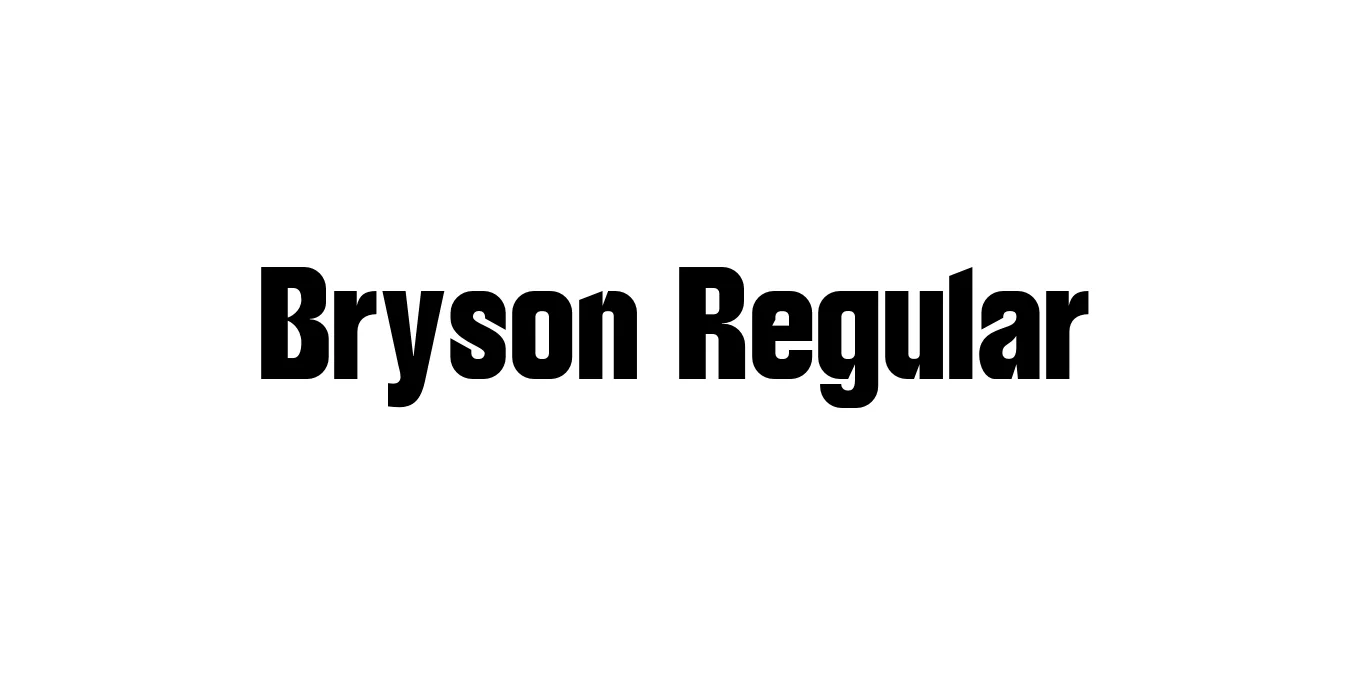
Bryson Regular
Designed by Loki Studio
| Category | Sans-serif |
Bryson Regular is a sophisticated sans-serif typeface designed with a focus on geometric clarity and modern functionalism. It features a balanced x-height and open apertures that enhance legibility across both digital and analog platforms. The font was crafted to provide a neutral yet distinct aesthetic, allowing it to function as a reliable workhorse for diverse design environments ranging from corporate reports to creative portfolios.
The history of Bryson Regular is rooted in the minimalist design movement of the early 21st century, where the need for versatile, high-contrast typefaces became paramount for screen-based reading. Its clean construction avoids unnecessary ornamentation, ensuring that the message remains the primary focus. Today, it is widely recognized for its professional demeanor and its ability to maintain visual integrity even when scaled to small sizes in complex user interfaces.
Bryson Regular Best Uses
Perfect for creating modern logos and visual identities for tech and lifestyle brands.
Highly readable for body text and navigation elements on high-resolution displays.
Excellent for magazine layouts and brochures that require a contemporary feel.
Optimized for mobile app menus and dashboard components due to its clear letterforms.